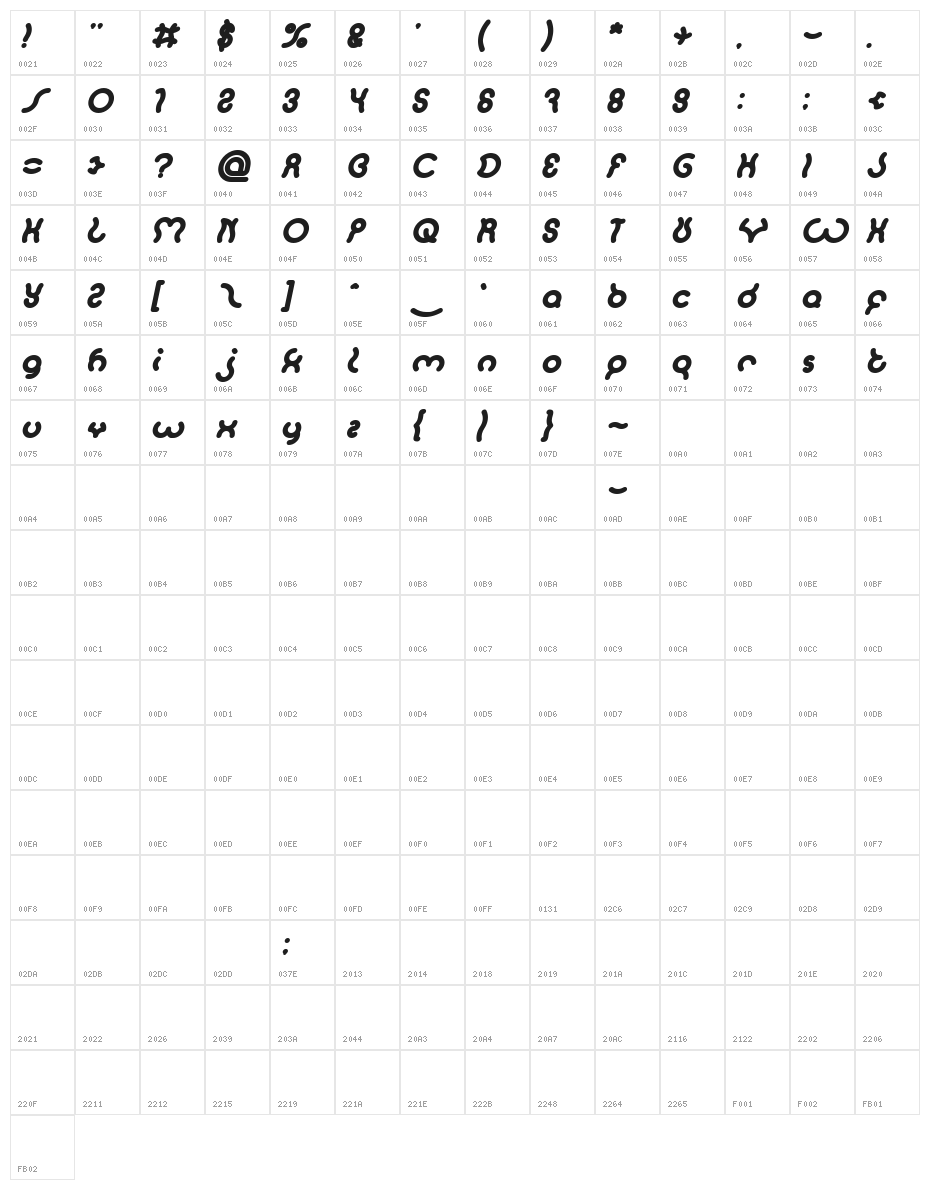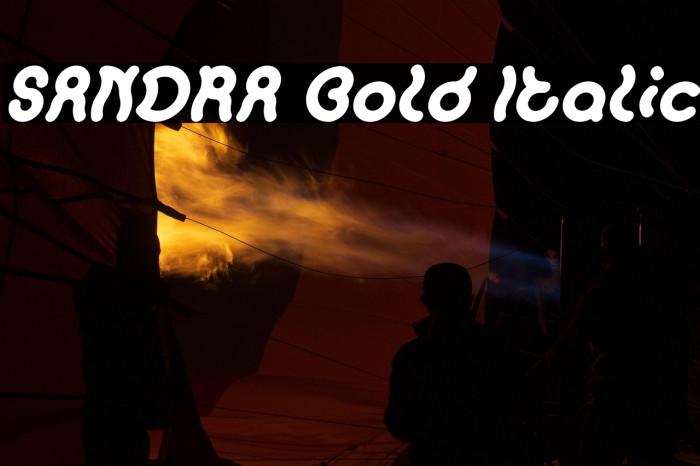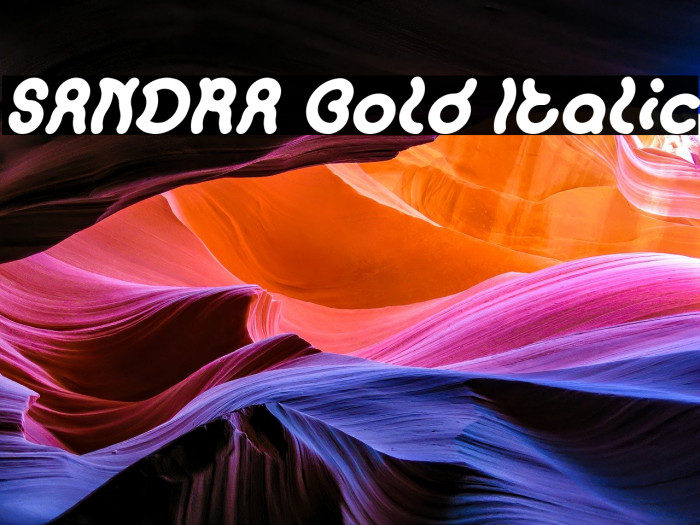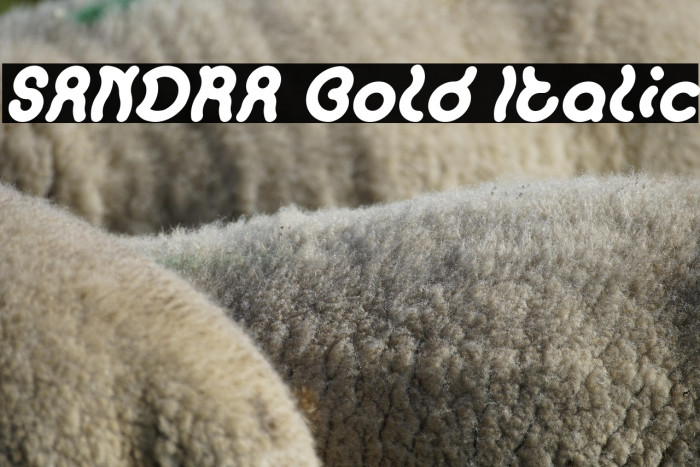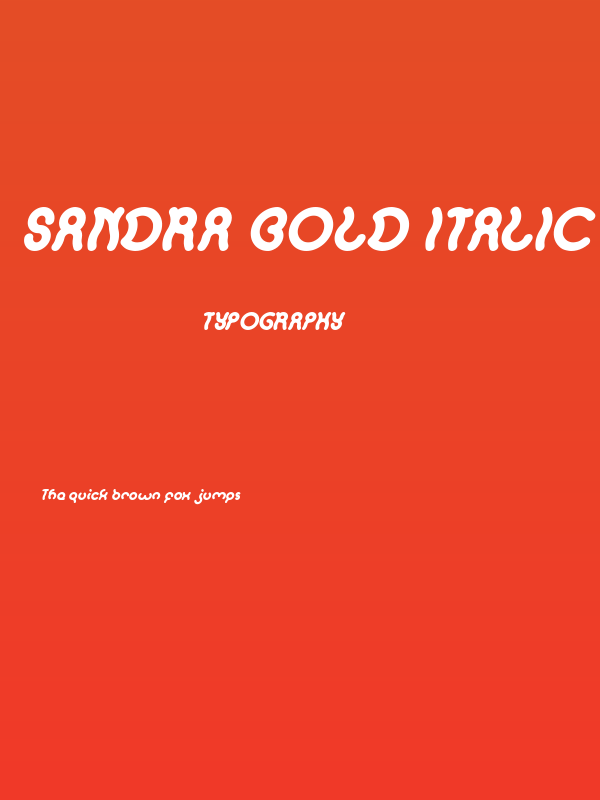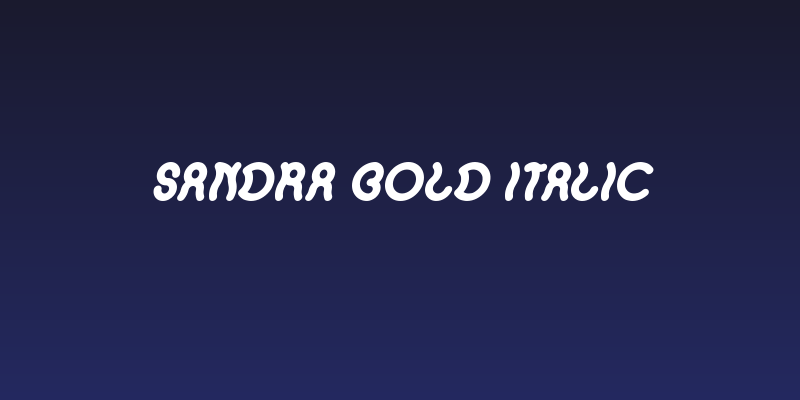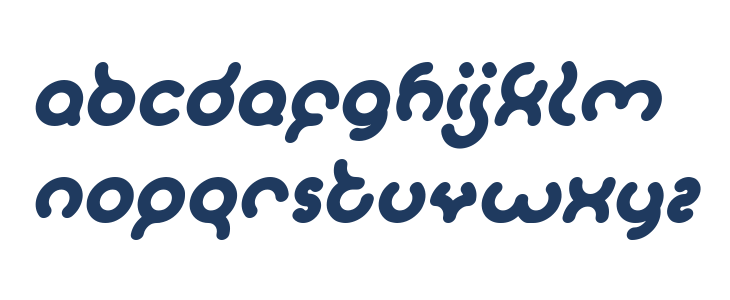
SANDRA Bold Italic Font
SANDRA Bold Italic Description
This font features a bold and playful design with a unique, bubbly appearance. Each character is crafted with rounded edges and a consistent thickness, giving it a cohesive and friendly look. The letters are slightly italicized, adding a dynamic and energetic feel to the text. The numbers and special characters maintain the same whimsical style, ensuring uniformity across all elements. This font's distinct style makes it stand out, making it suitable for creative and fun projects.